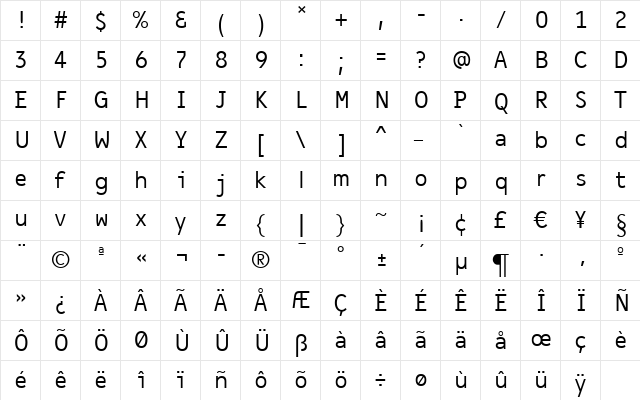
Message-Regular Regular
Design Context for Message-Regular Typeface
Message-Regular is a composed and adaptable typeface that performs quietly and consistently across a wide range of design contexts.
Pro Tip: Pair Message-Regular with a font of contrasting weight or personality to build a more expressive typographic hierarchy.